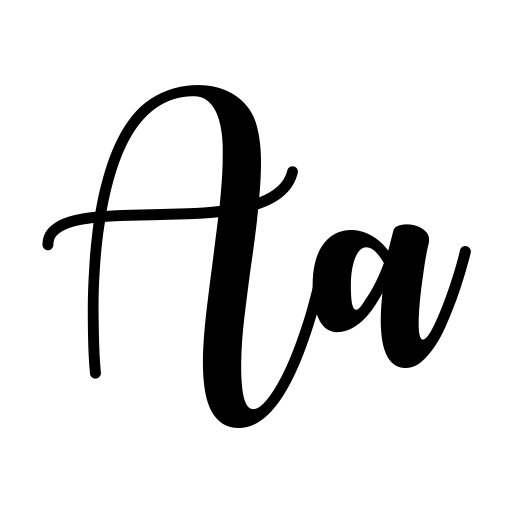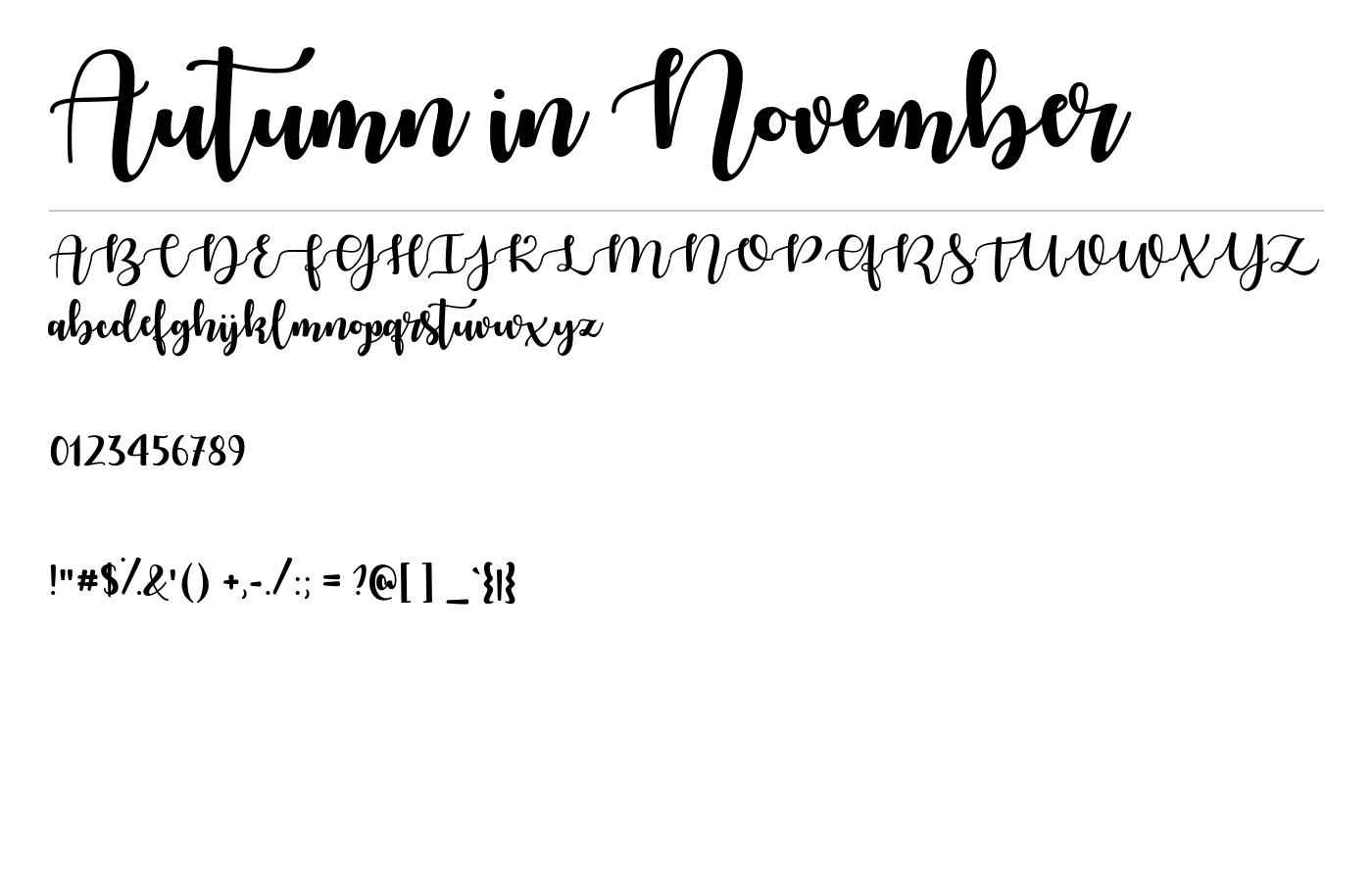
Autumn in November is a charming script font with a warm, handwritten feel. Its flowing, slightly bold strokes and elegant loops make it perfect for adding a personal, inviting touch to invitations, branding, or lifestyle projects. This font works especially well in designs that want to evoke a cozy, friendly, and creative atmosphere.
Autumn in November Font
About Autumn in November Font
| Font family | Autumn in November Font |
| Designer | Misti's Fonts |